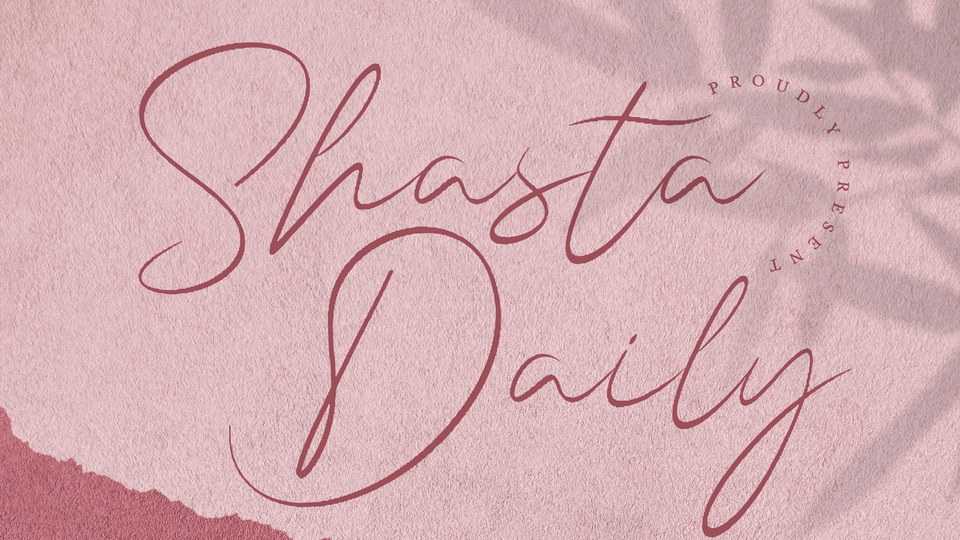
Download Shasta Daily font, a lovely handwritten typeface made with heart, so it gives birth to a font with an elegant and feminine look. Shasta Daily would perfect for photography watermark, social media or anything that need handwriting taste.